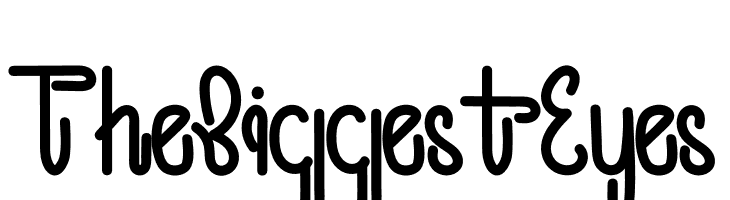
A playful, bold, and interconnected hand-drawn font with a whimsical flair.
A playful, bold script font with a hand-drawn, modern style.
A playful, whimsical font with flowing strokes and artistic flair.
A charming, handwritten-style font with elegant, fluid strokes.
A playful, handwritten font with a whimsical and creative style.